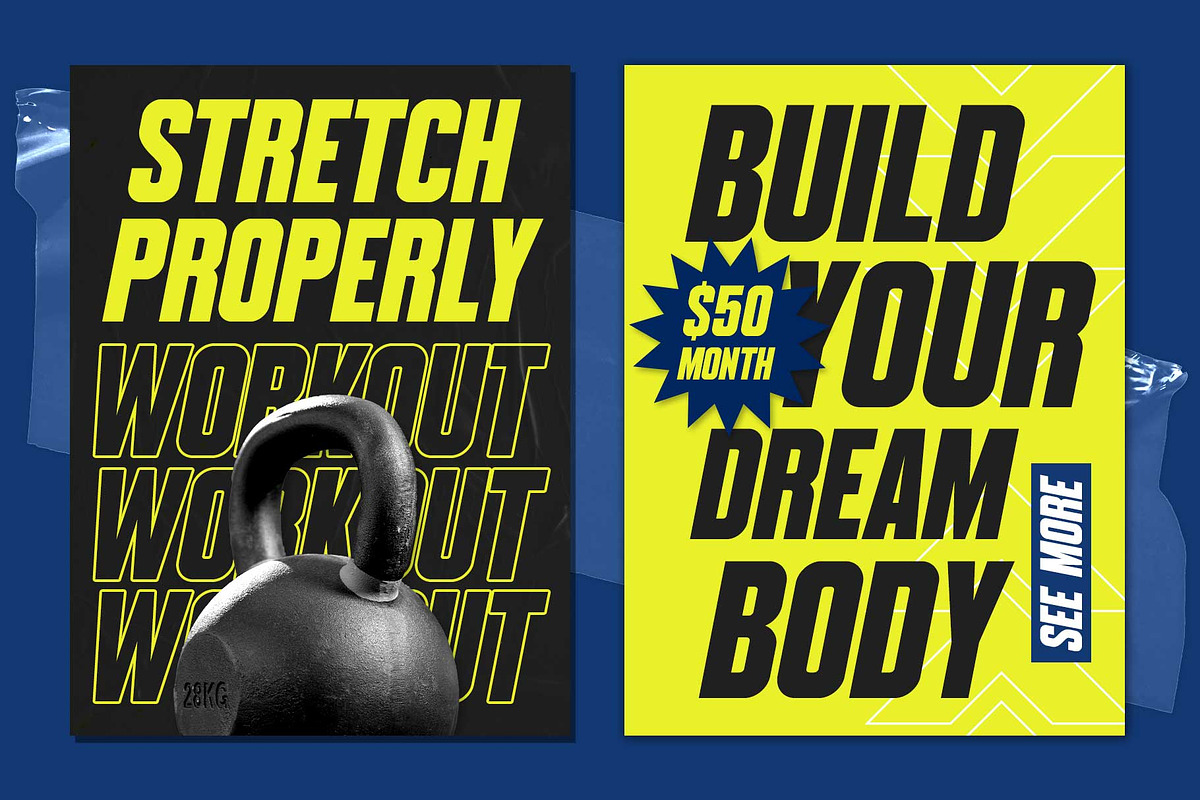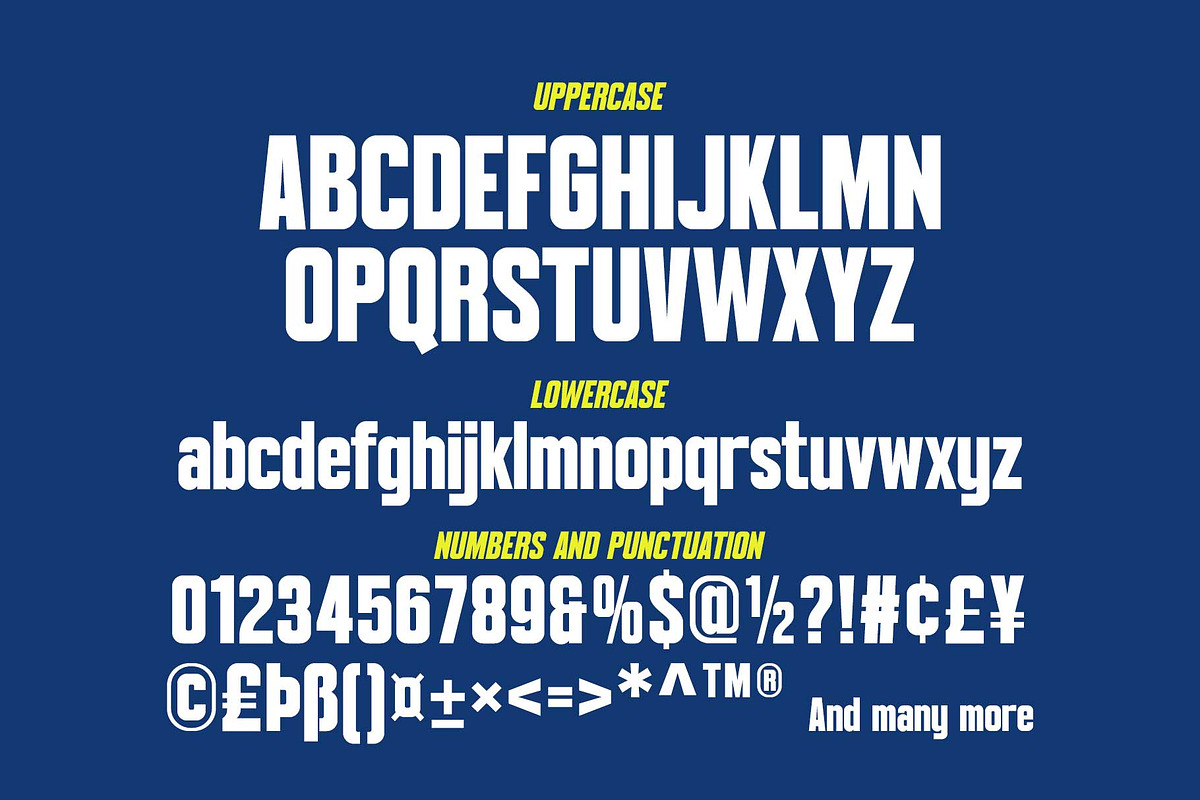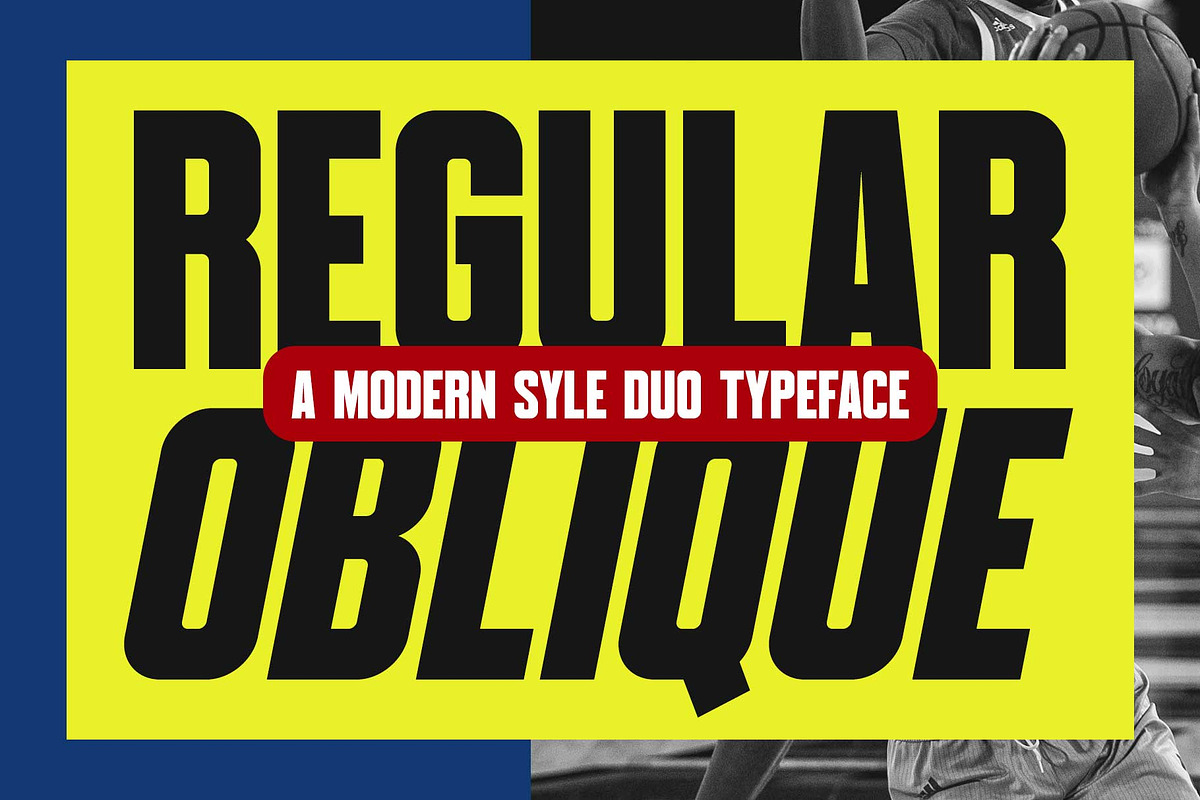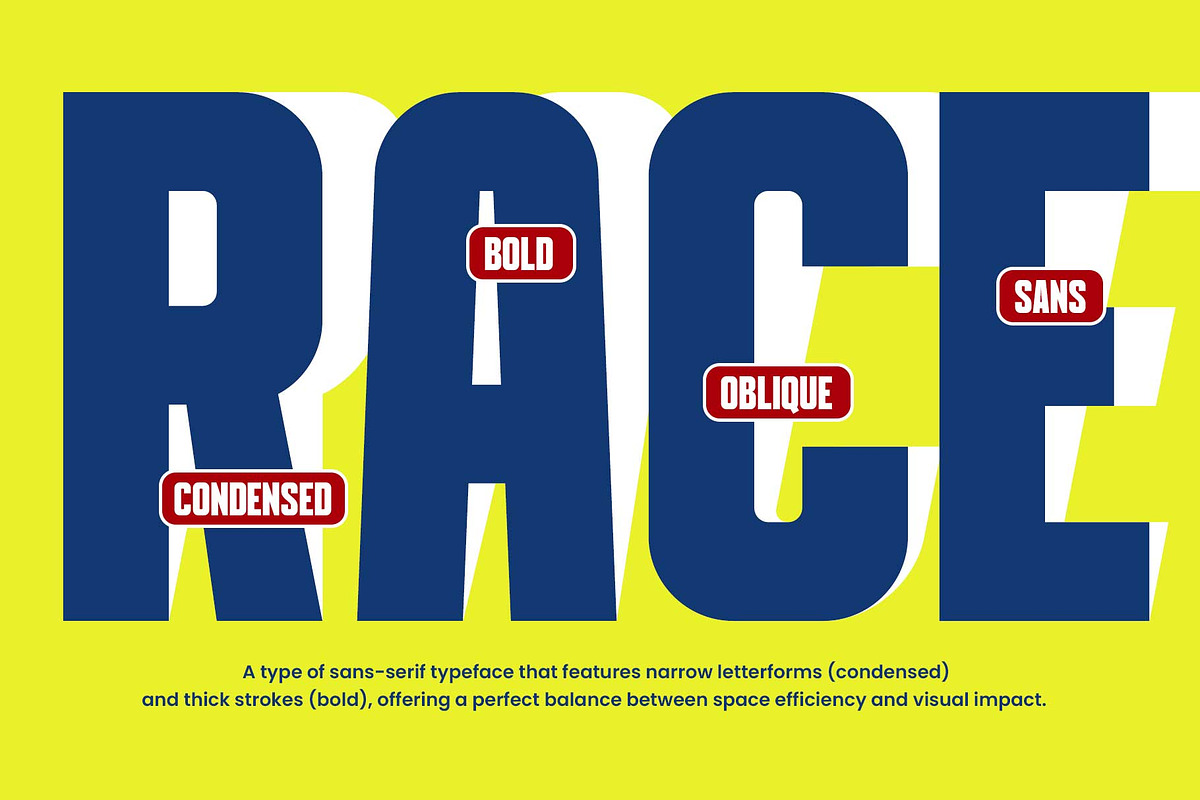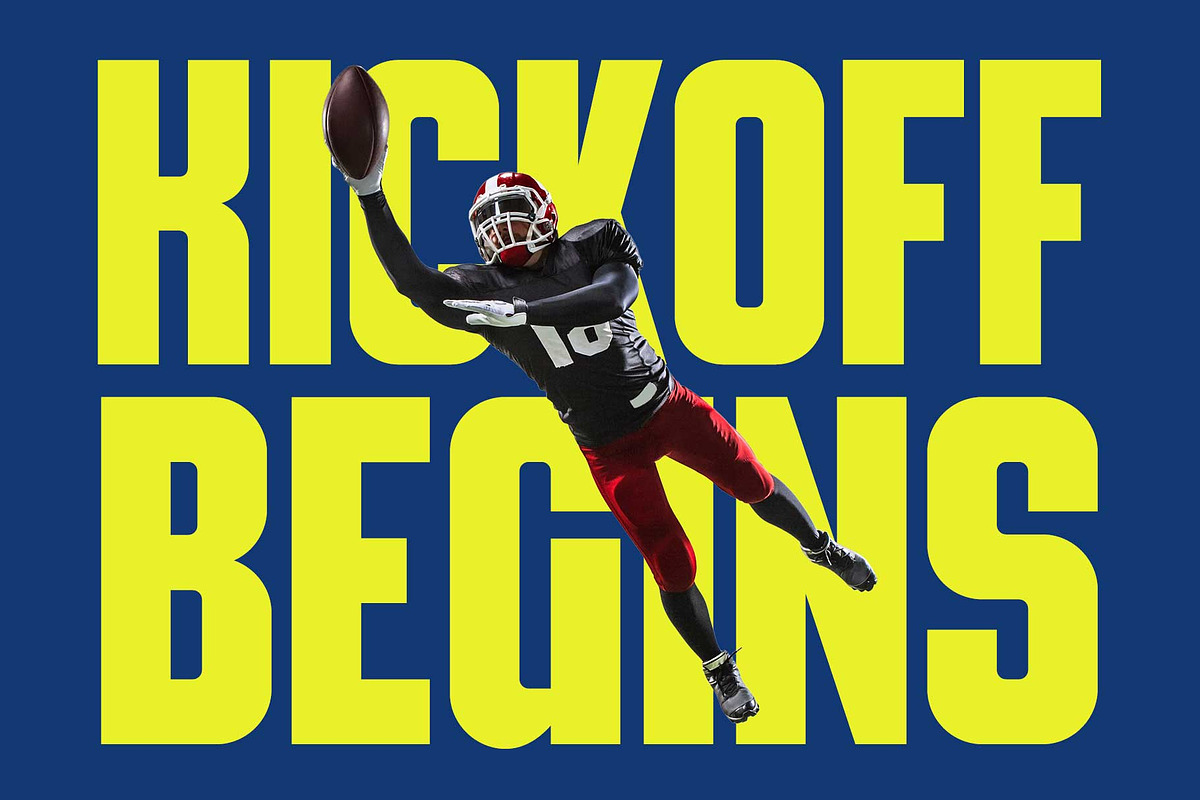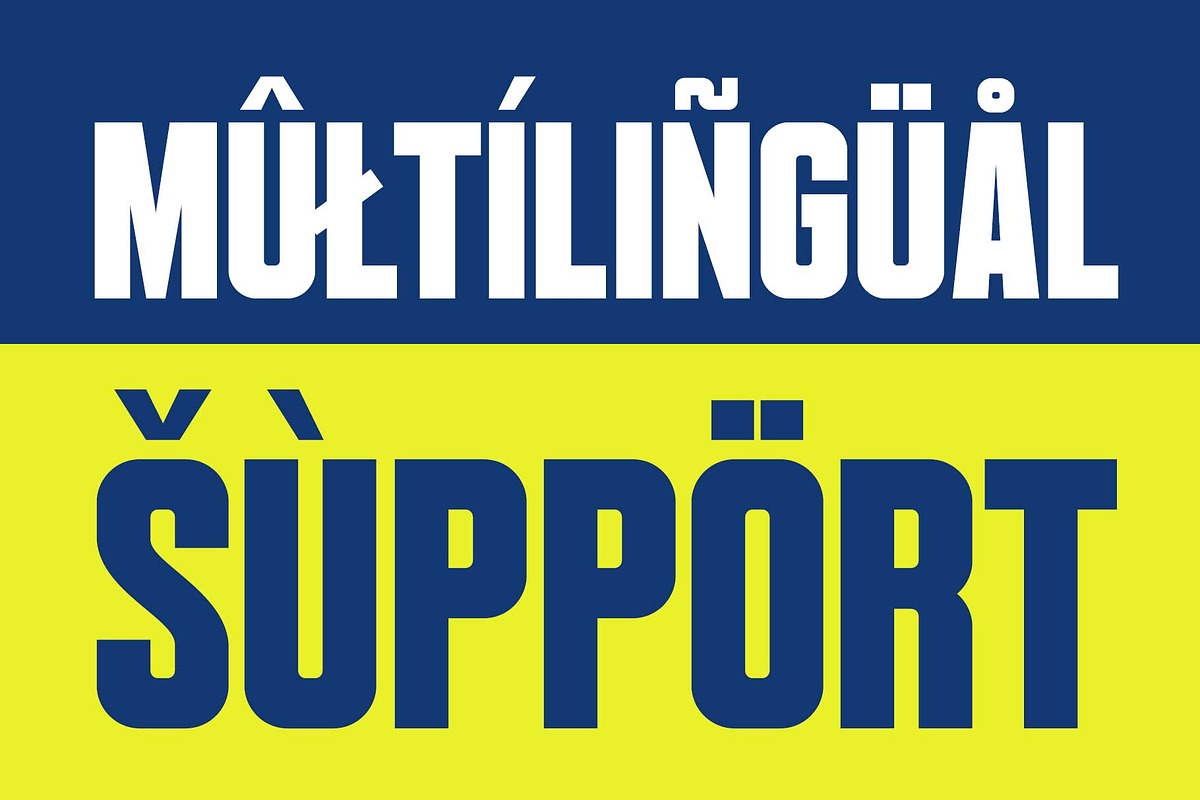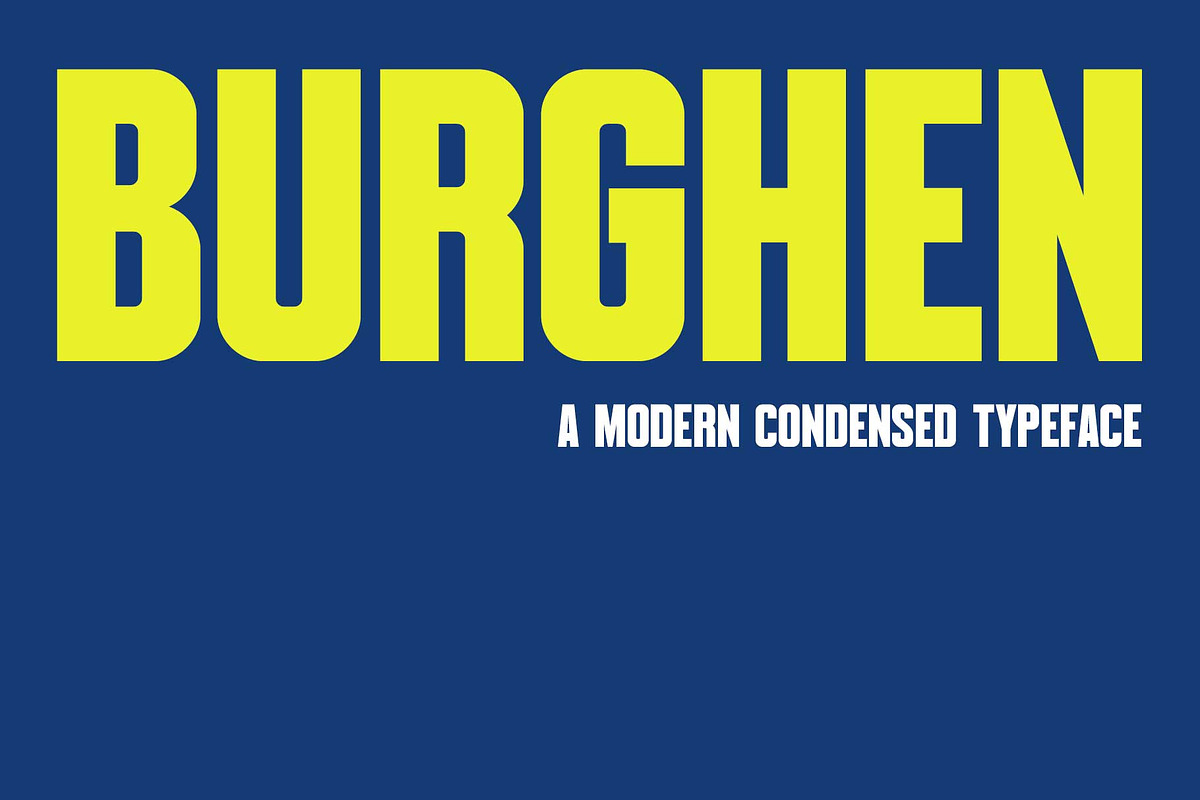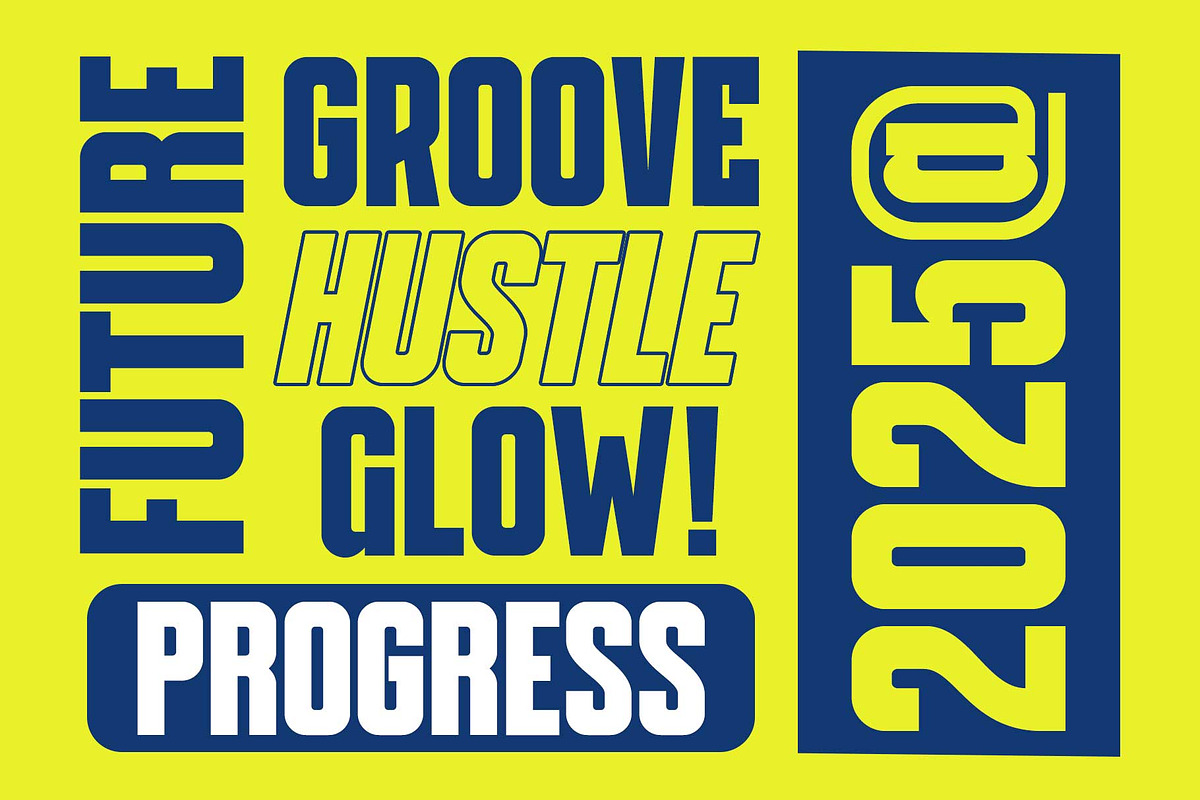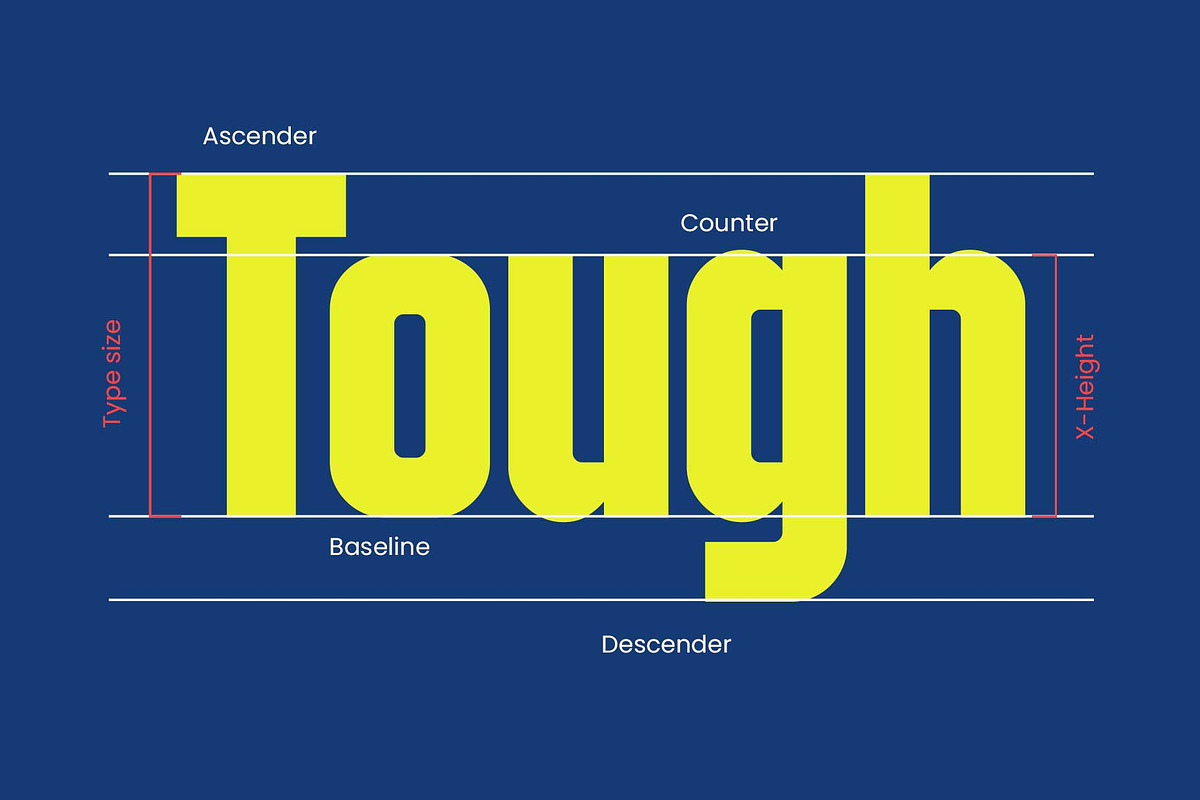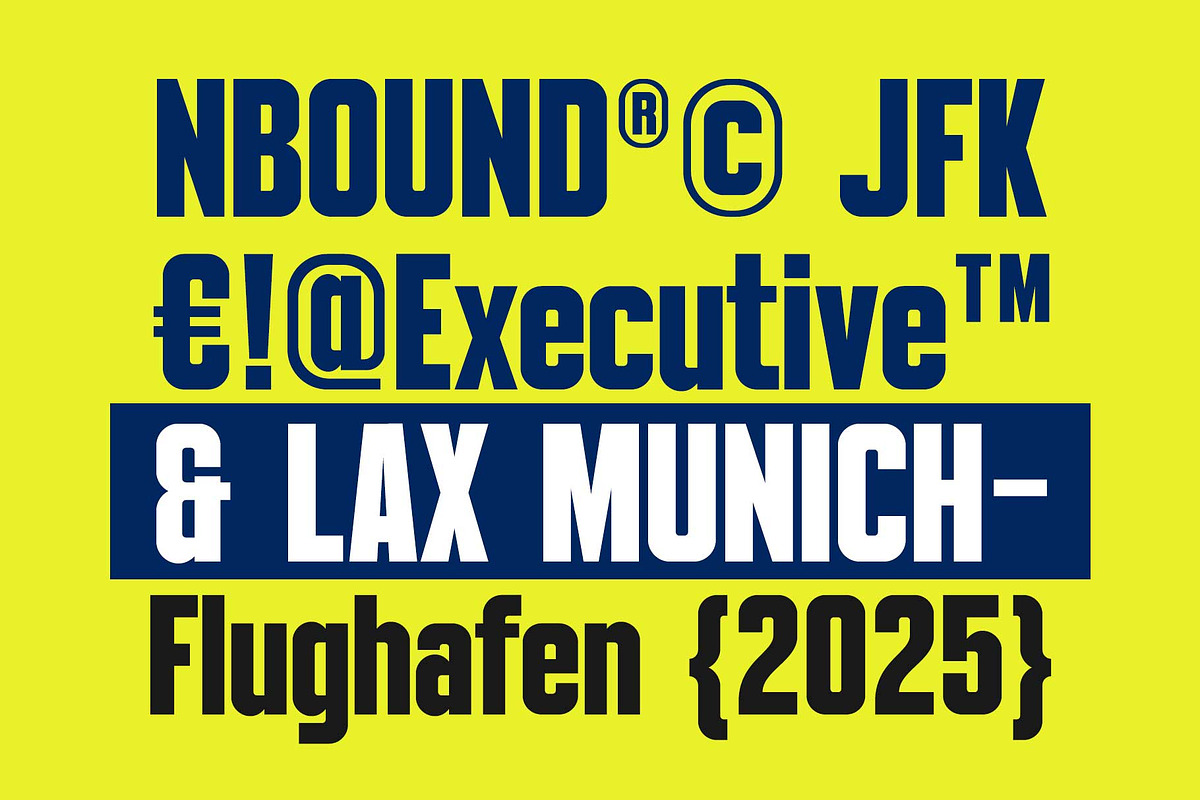
Burghen - Modern Condensed
Introducing Burghen, a condensed sans font with a modern design. Its strong letterforms allow you to create designs that speak louder. Burghen is a display font that is perfect for designs that require clarity of words and elegant layout.
This font is also available in oblique style that you can combine with the regular style to get a unique and eye-catching design. Burghen also comes with many special characters that give you lots of options in designing your letters!
- Numbers & symbols
- Stylistic alternates